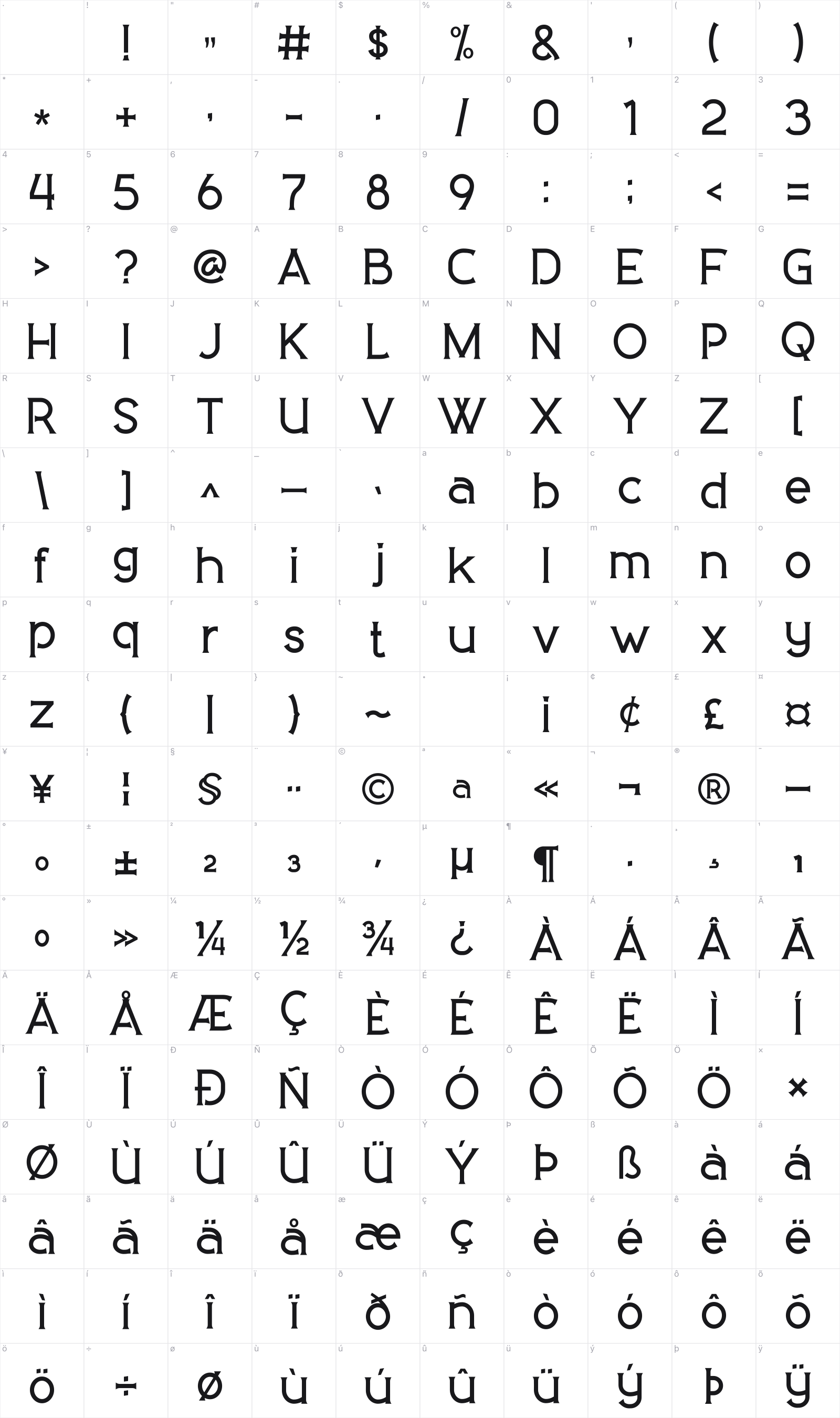
Wishflow
Wishflow is a contemporary humanist sans with soft rounded terminals and subtle ink-trap notches that give it unexpected warmth. The wide, open proportions and low stroke contrast keep it clean and legible, while those small organic details stop it from feeling generic. It reads clearly at headline sizes and carries a relaxed, lifestyle-brand sensibility.